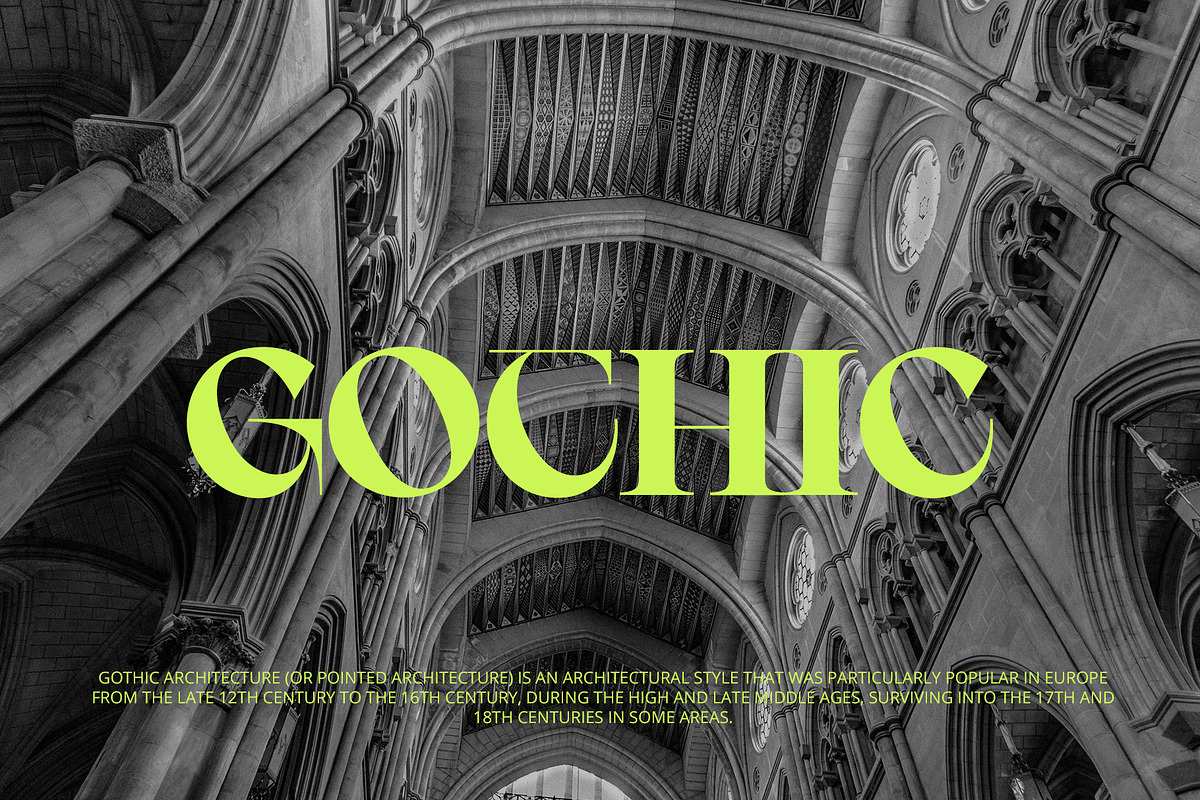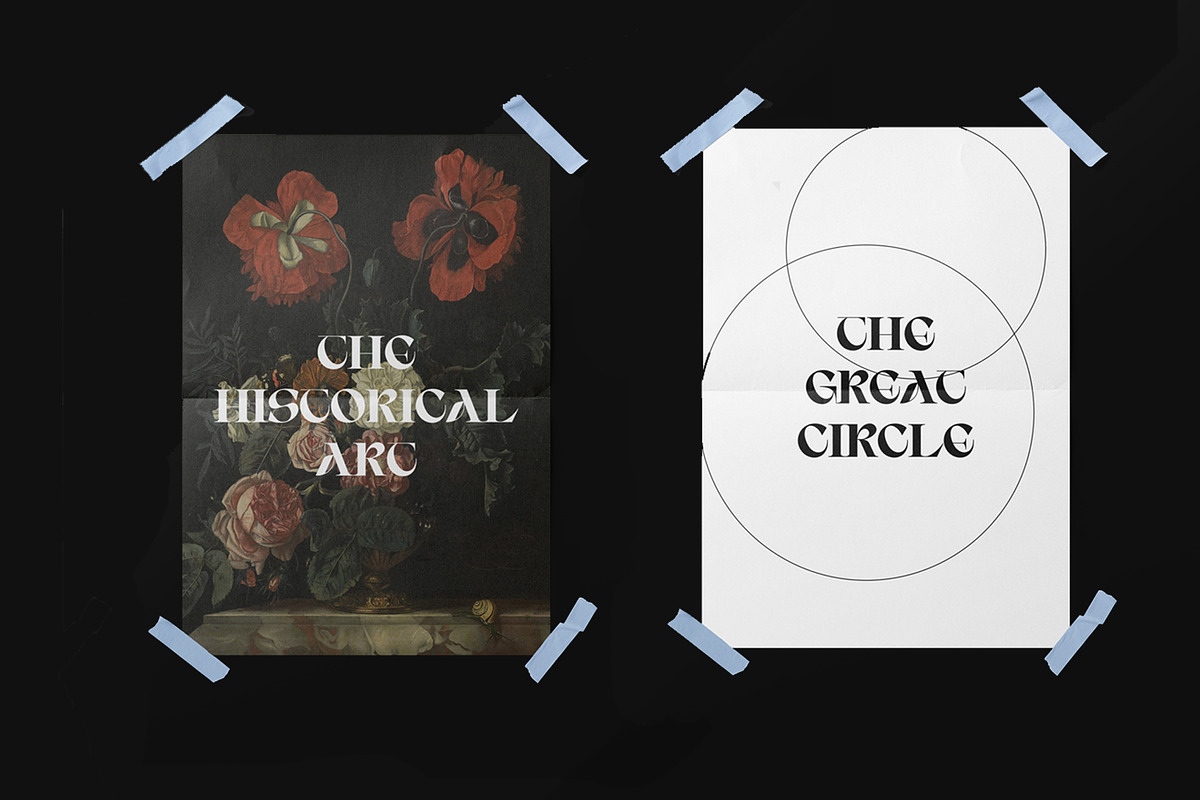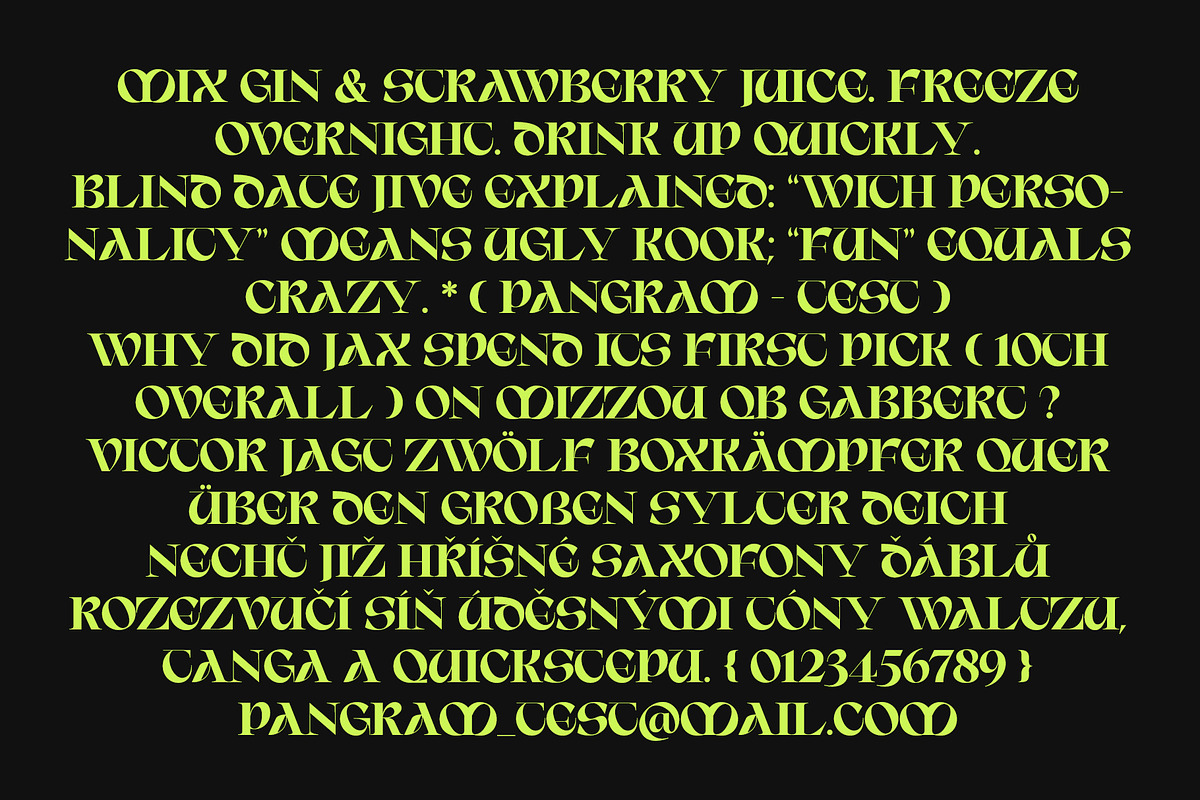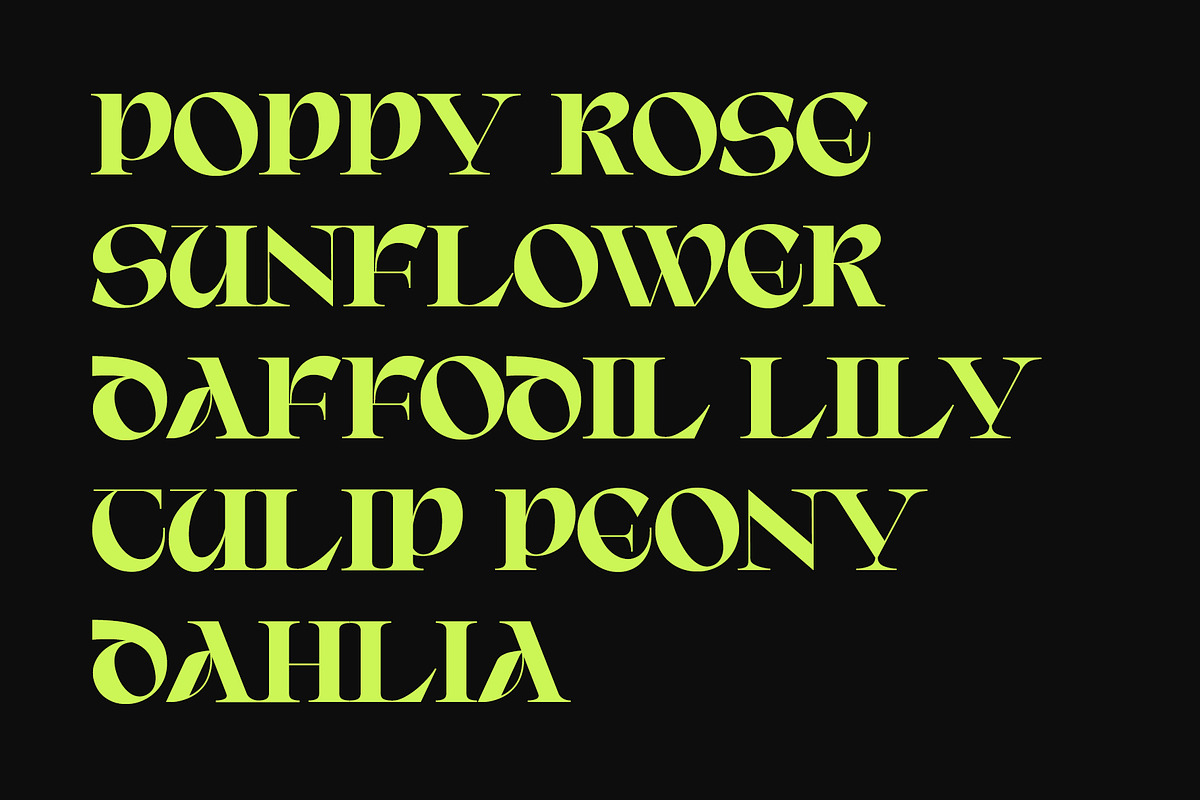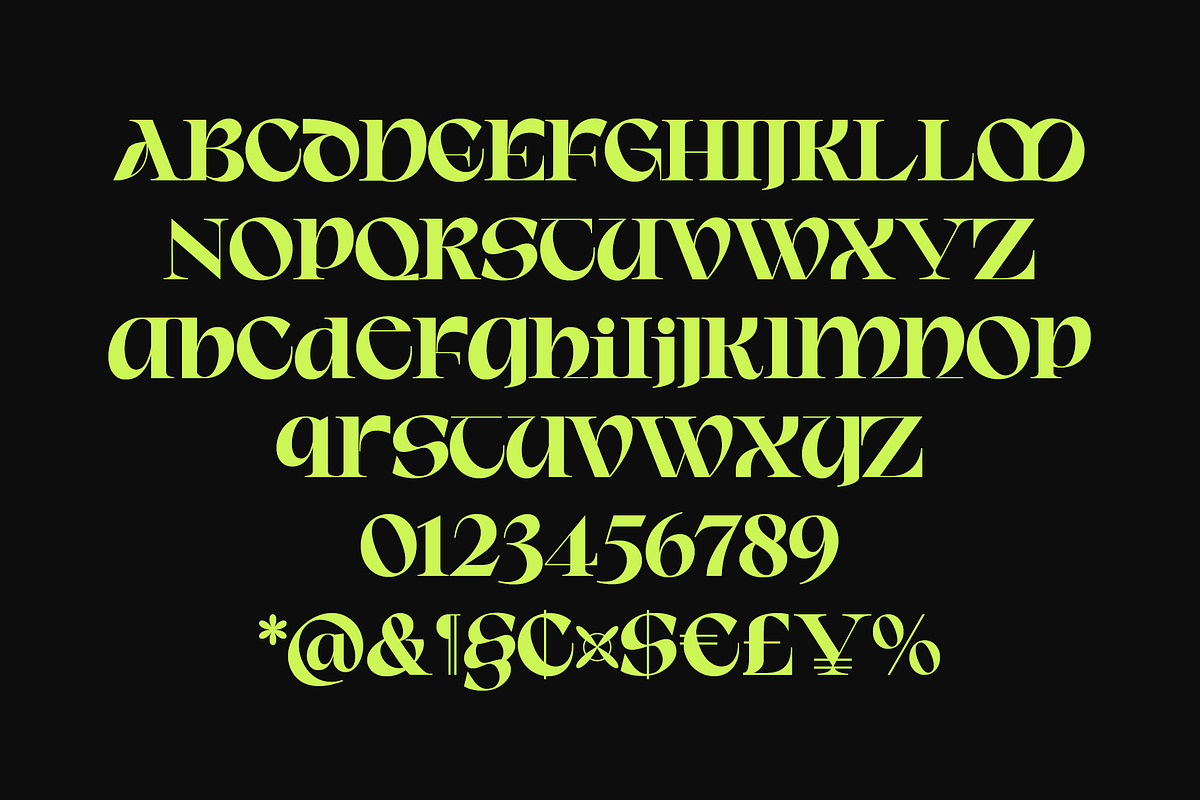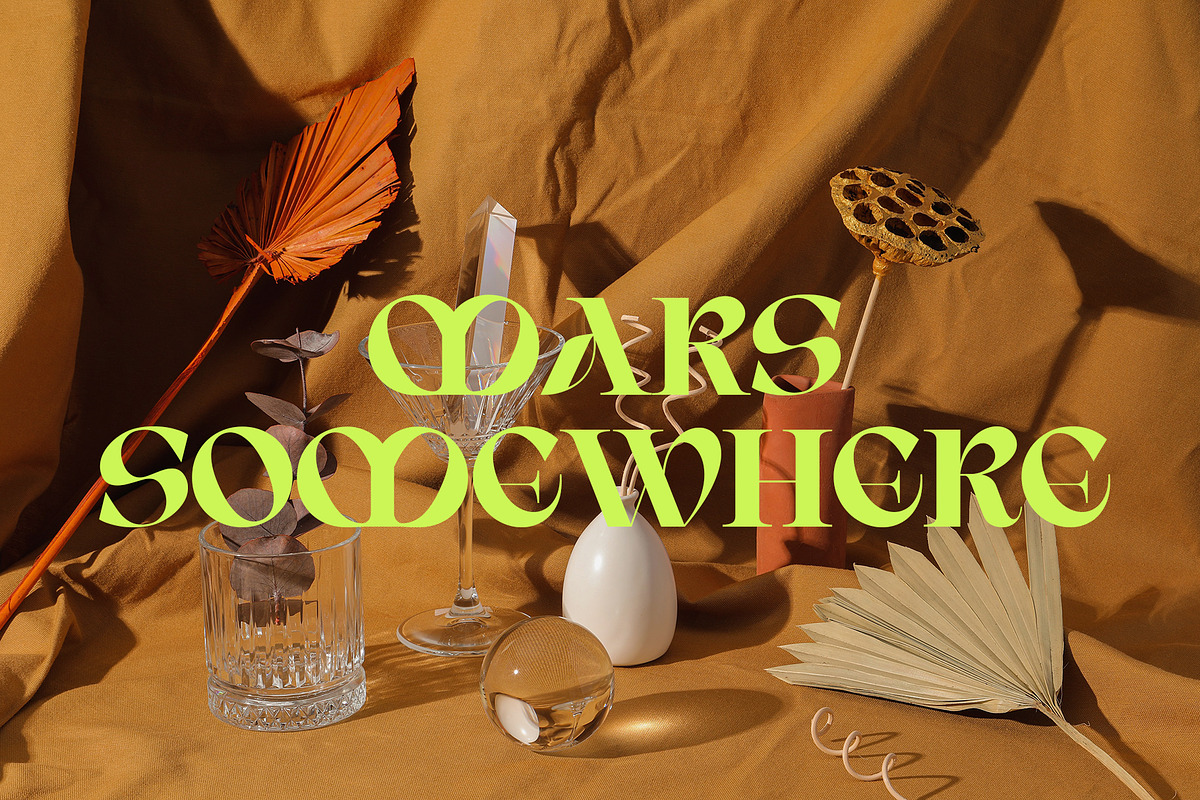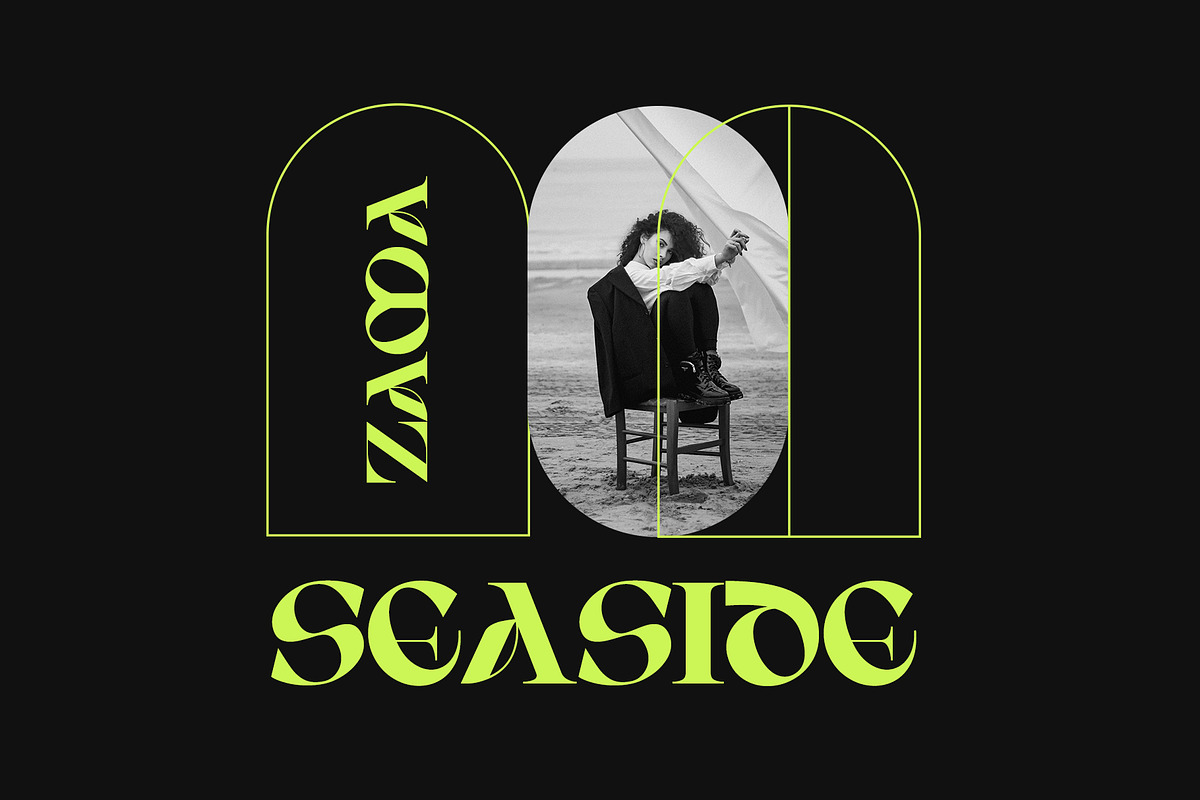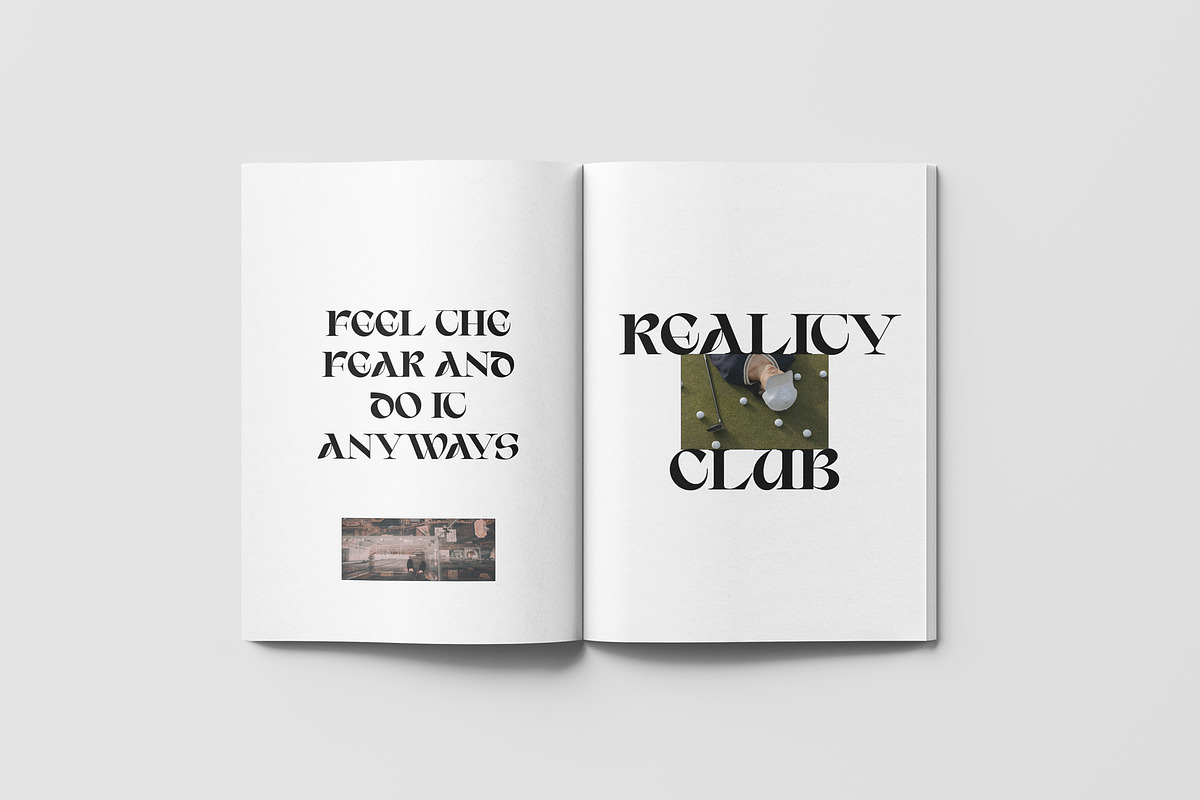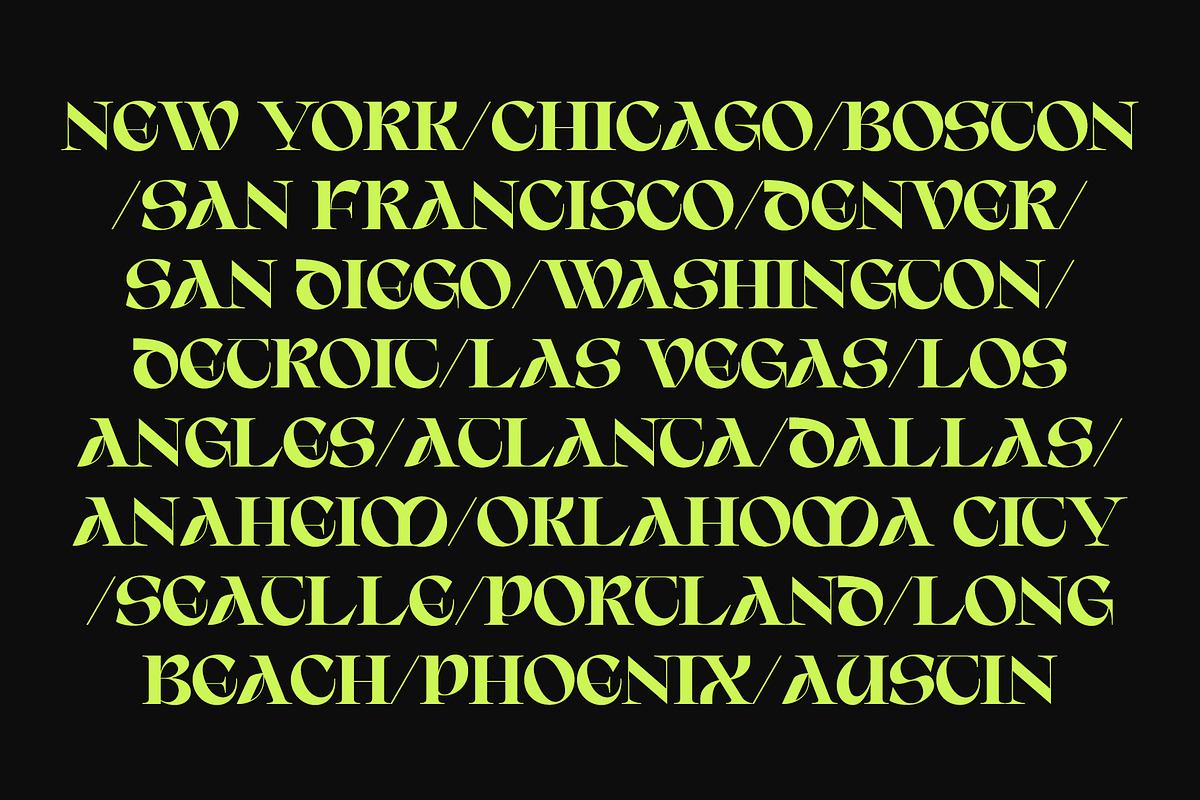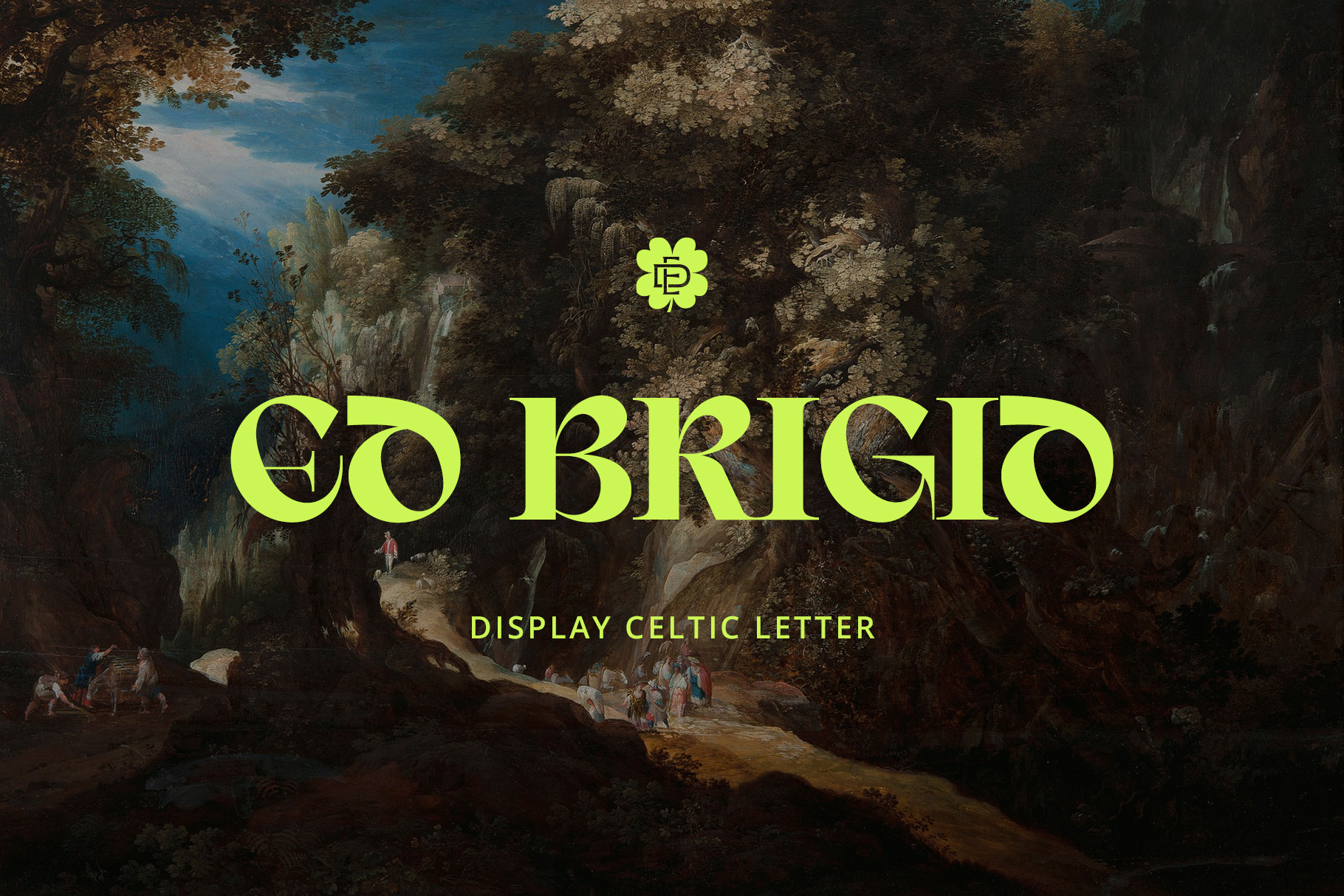
ED Brigid Typeface
ED Brigid is a celtic style display font combined with a modern serif design, this font is modern, elegant and looks aesthetic. This font is inspired by several typography on social media which have been redesigned so that it can be used for design needs. This font has an uppercase and lowercase with the same height to make it look full and attractive, besides that this font is also equipped with alternative characters, ligatures and multi-language support.
- Alternative Character
- ligature
- multi-language